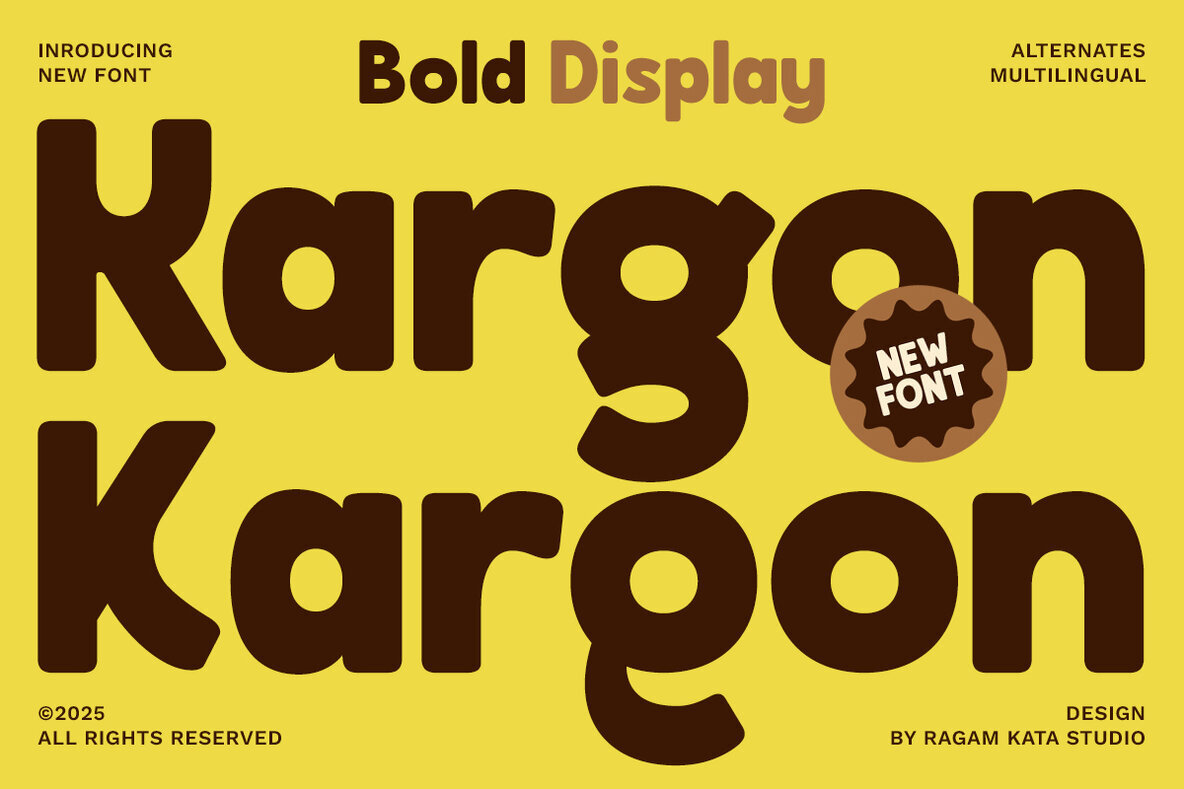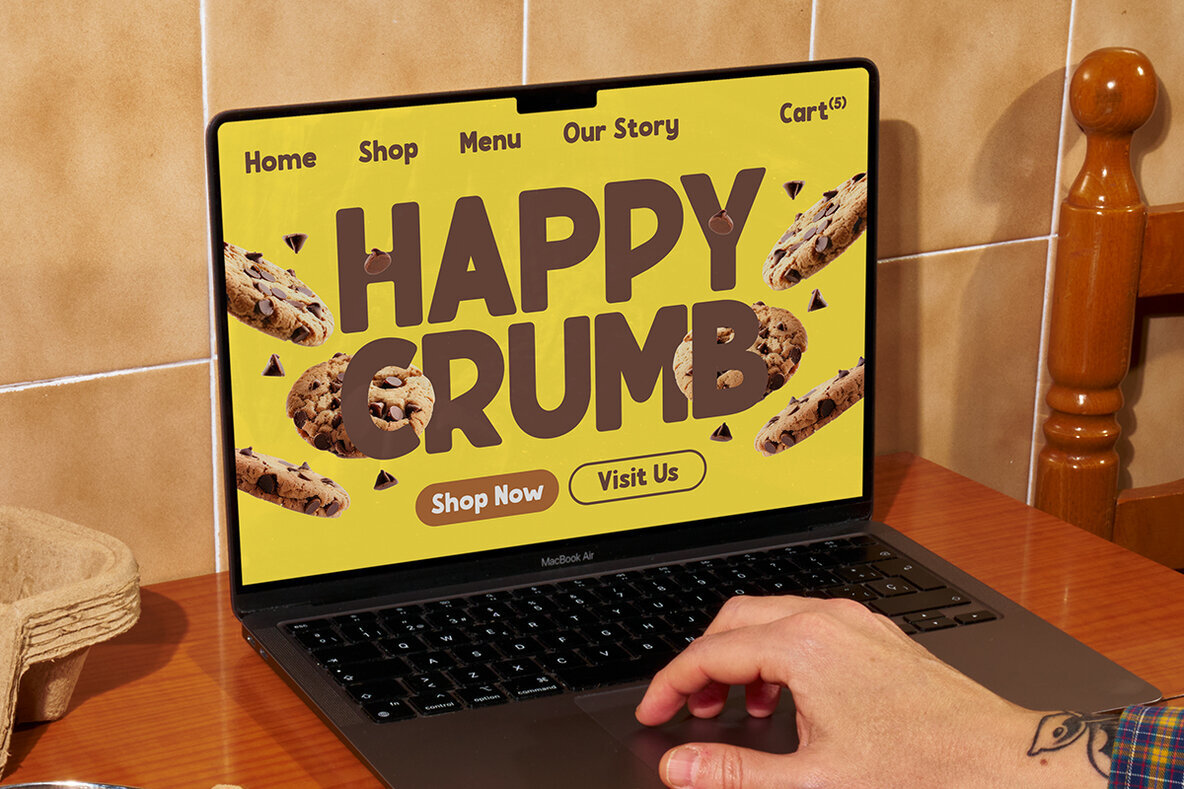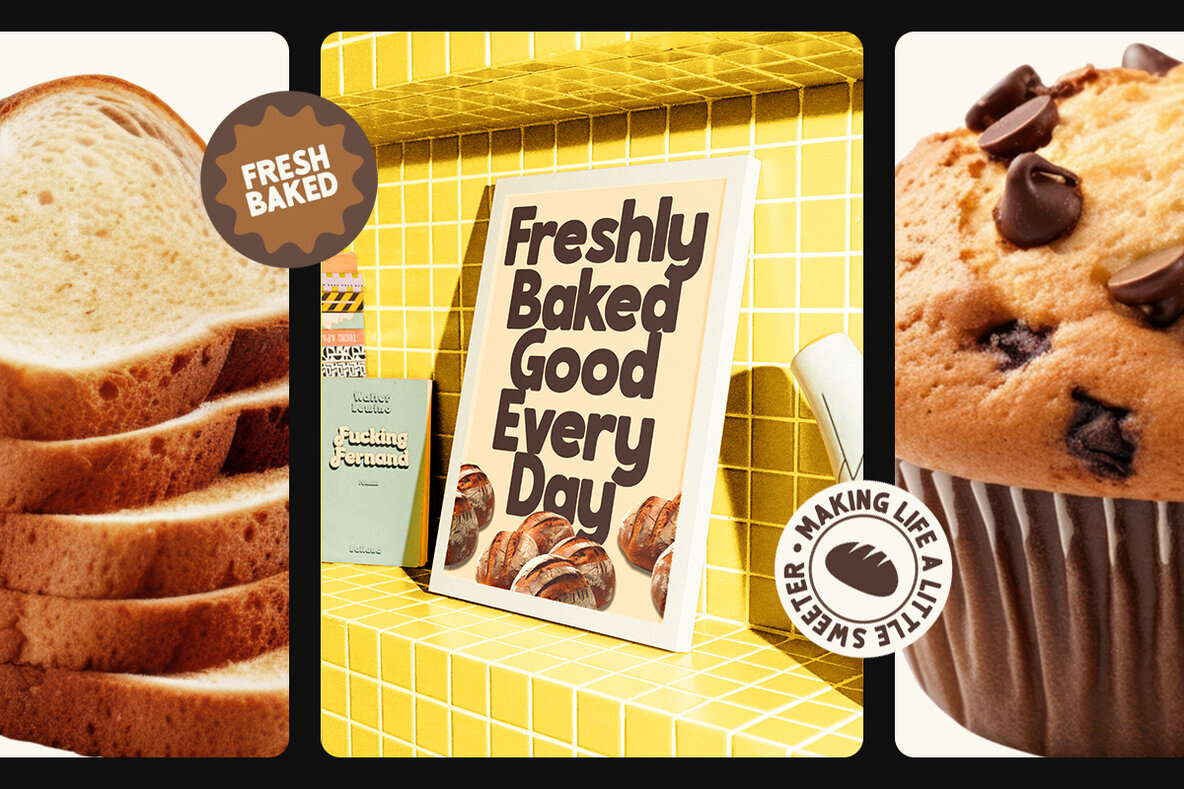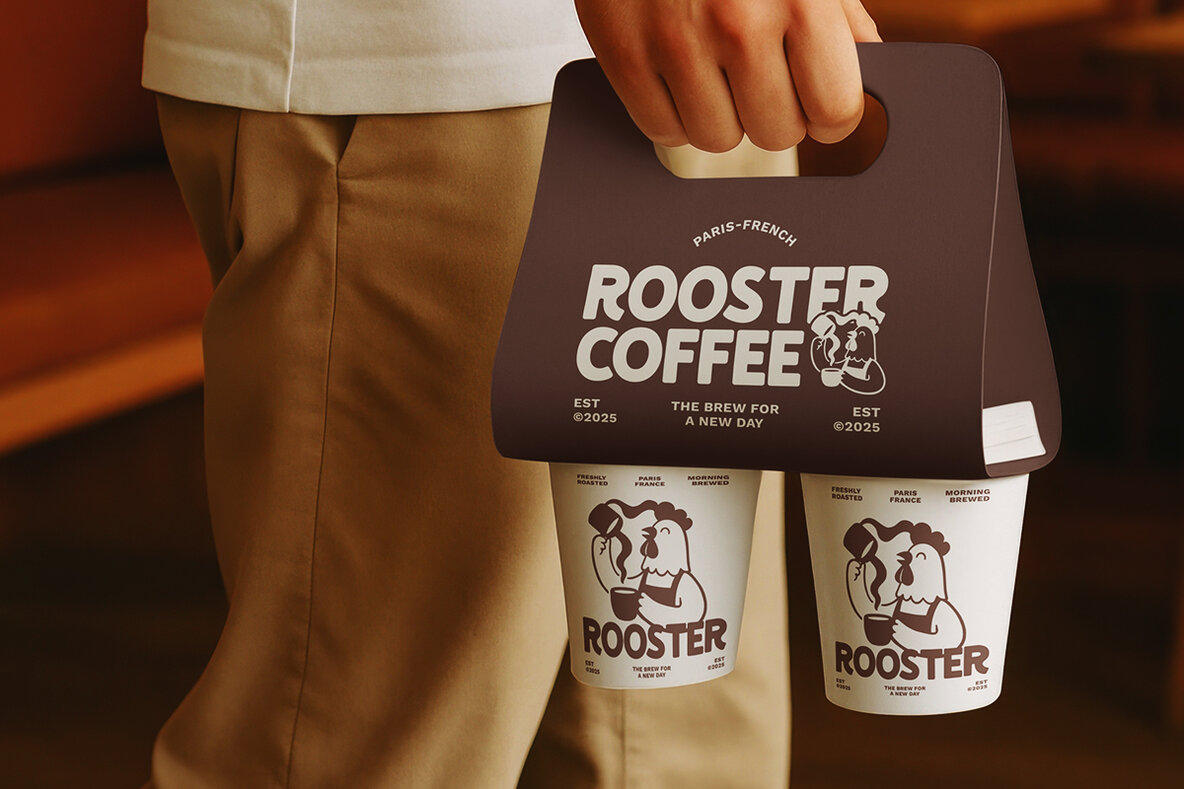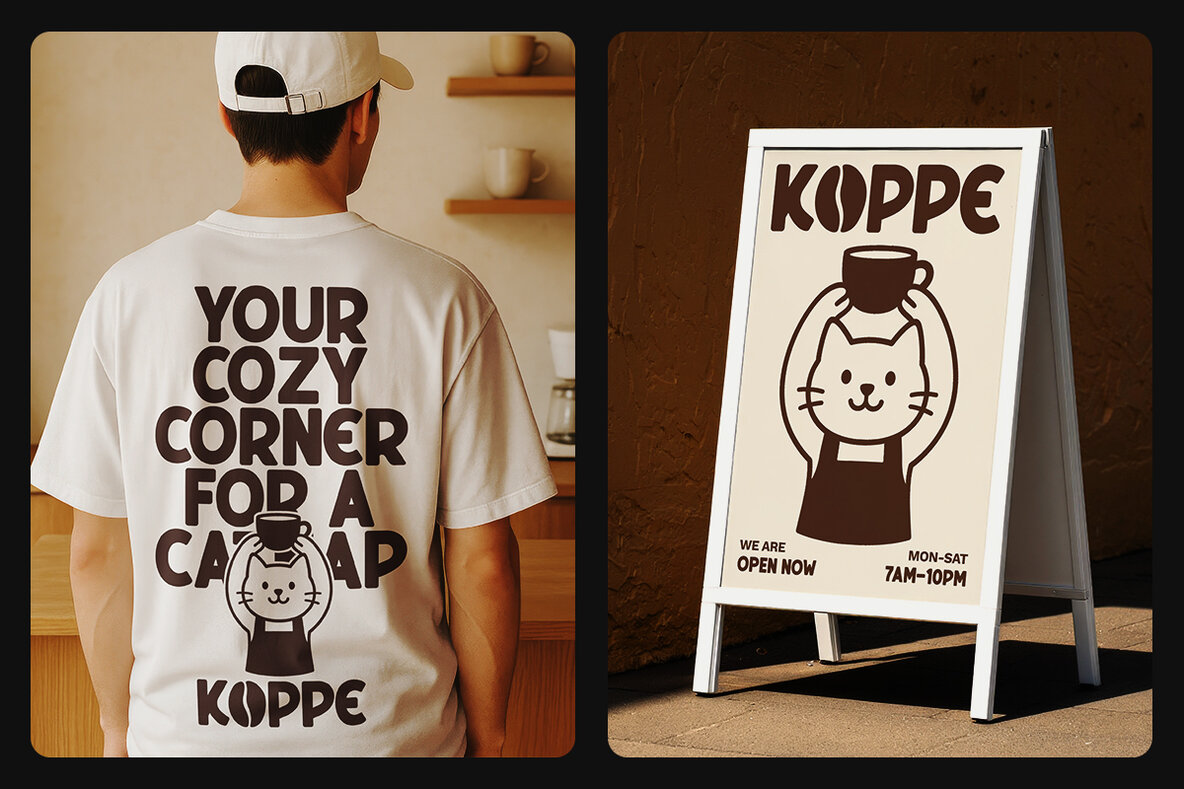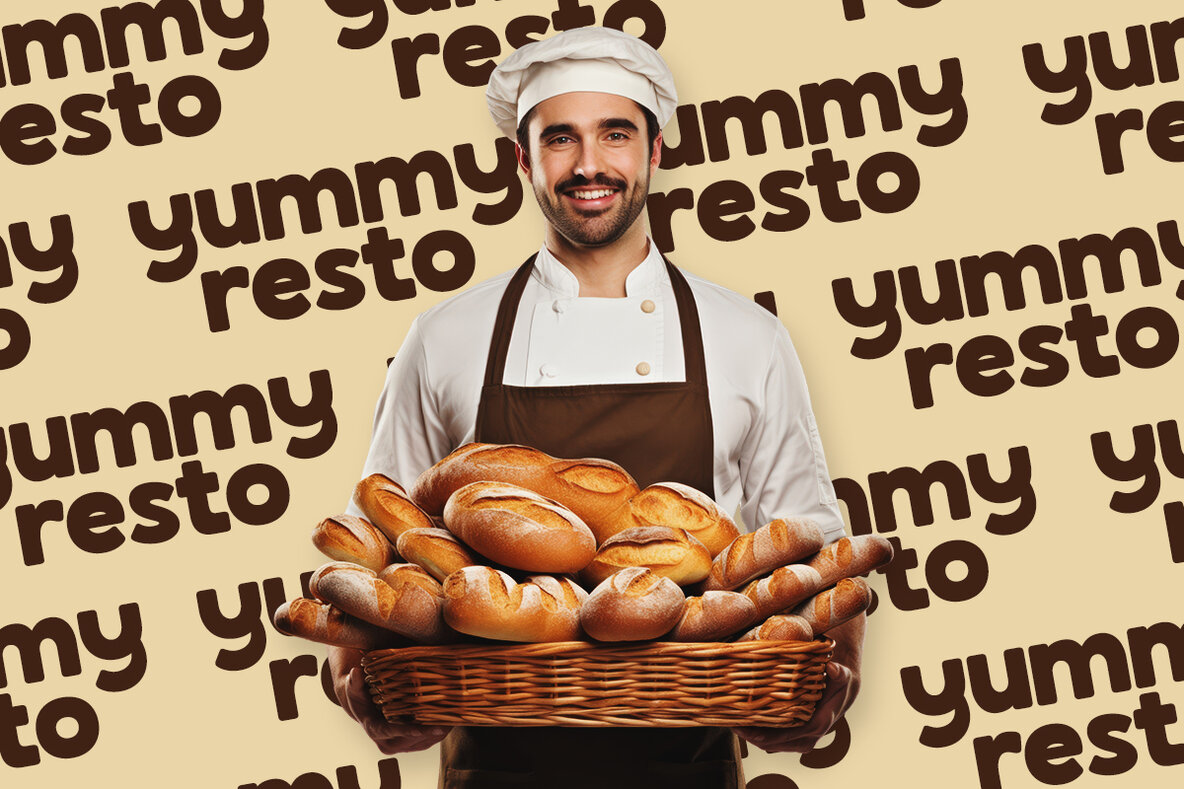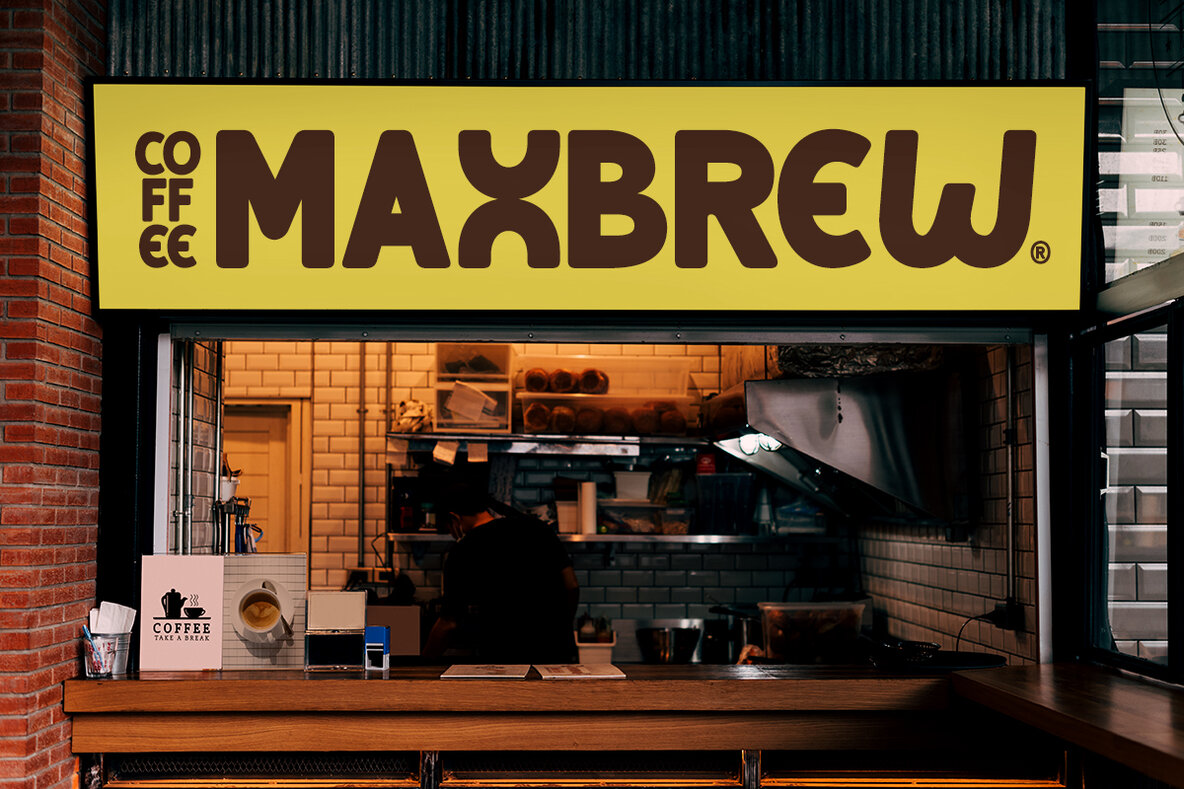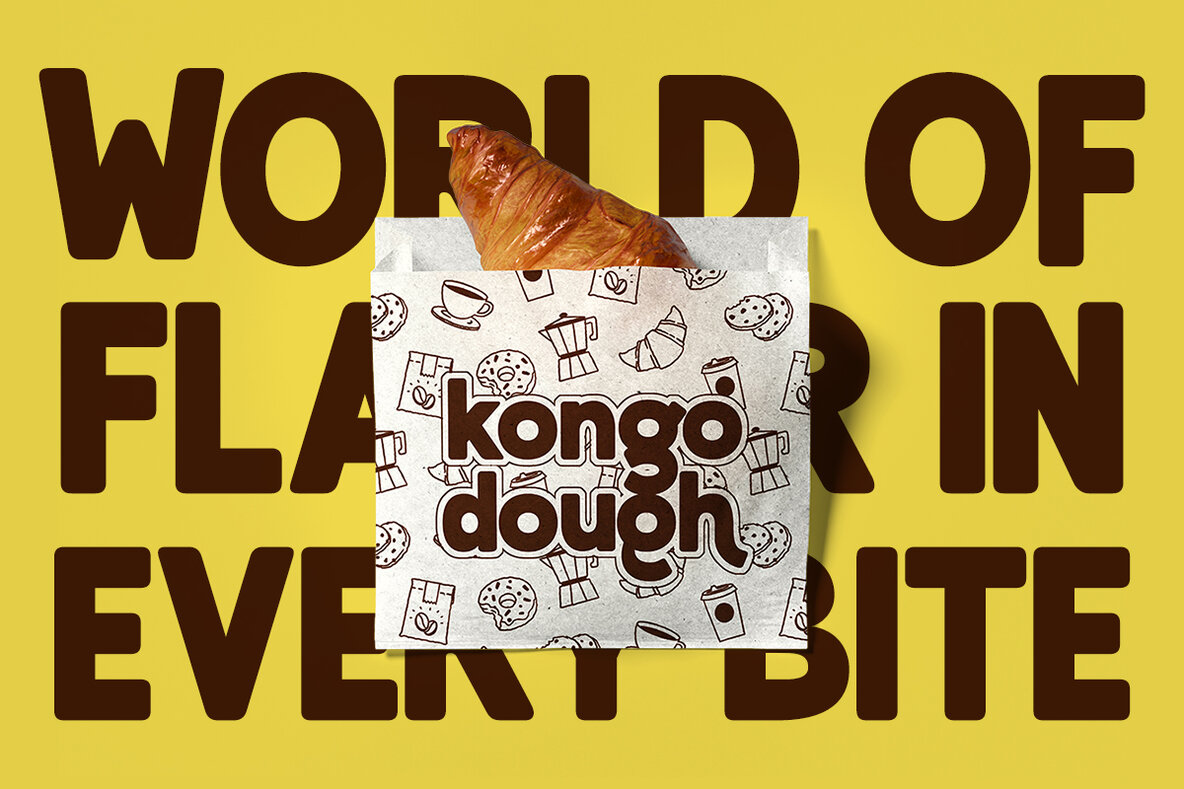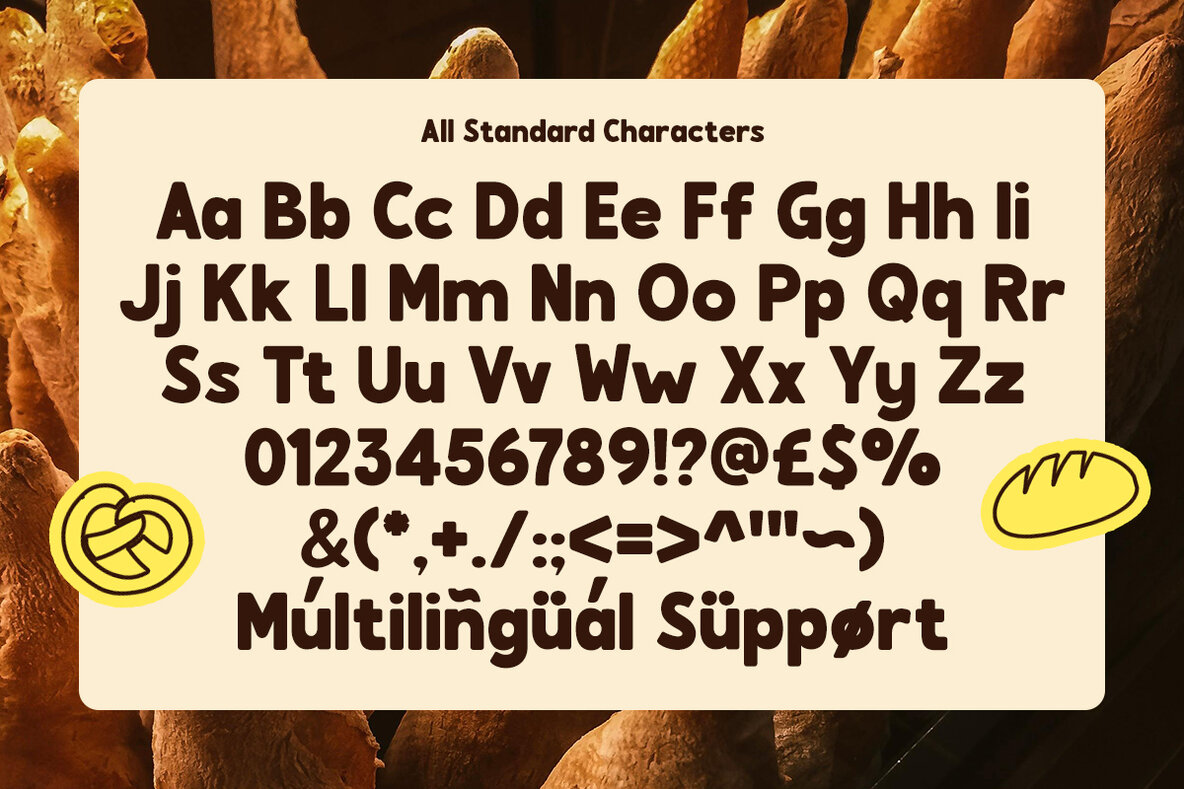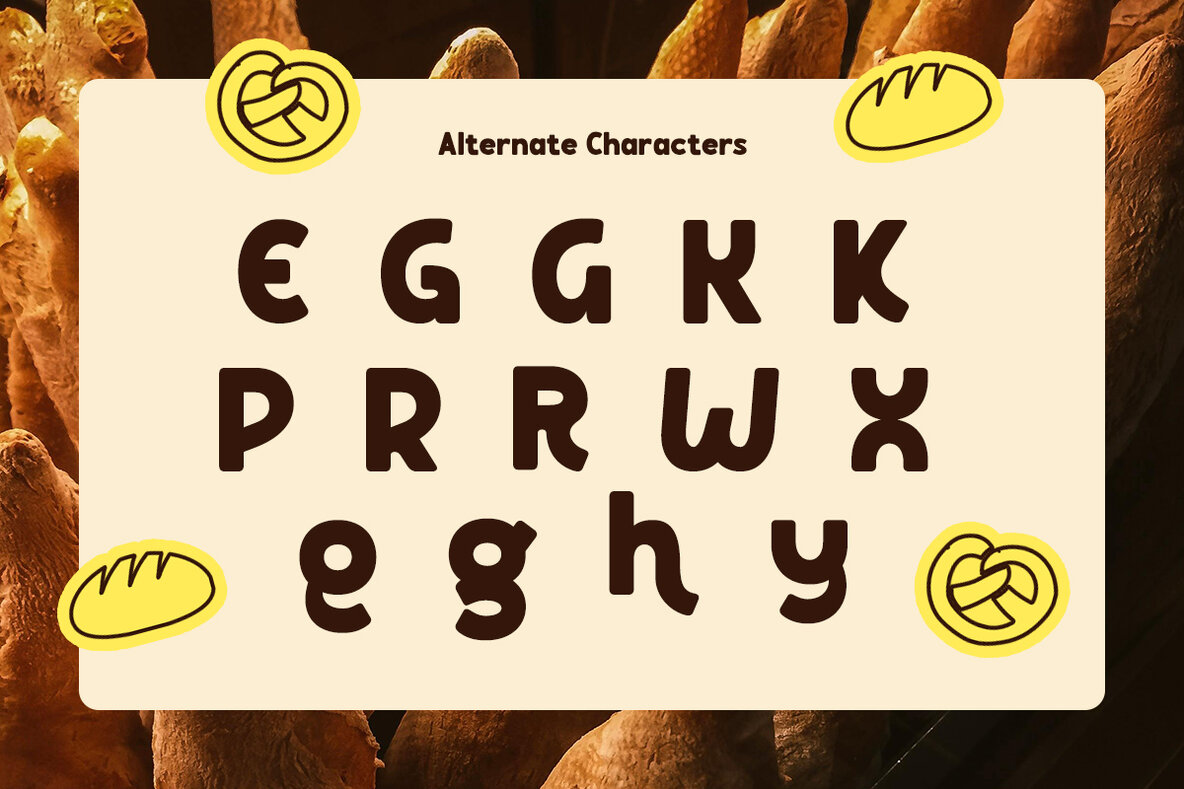
Kargon Font
Kargon Regular
Kargon is a striking display font defined by robust forms and soft contours. Its bold curves and gentle edges infuse a sense of playfulness and confidence into posters, branding suites, product packaging, and headline treatments. The retro-inspired proportions and generous weight help visual content stand apart, particularly in creative executions seeking distinct personality. Well-suited for projects that benefit from expressive typographic accents, Kargon’s versatile alternates and wide multilingual support address diverse creative needs. Its chunky silhouette and quirky flair encourage designers to experiment with scale and hierarchy, yielding compositions that feel approachable yet assured.Kargon: Bold Display Font with Playful Curves